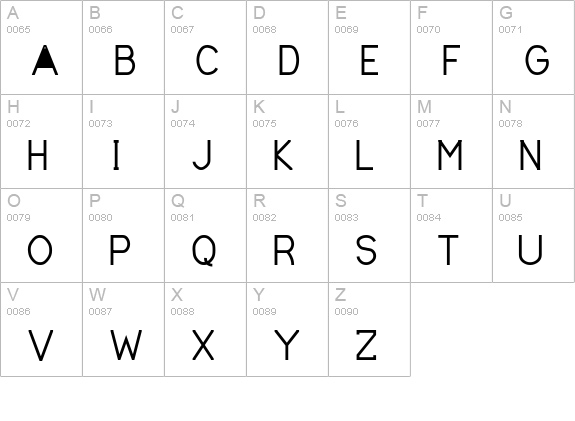
MathMajor Font Details
MathMajor font is a beautifully designed typeface that caters to the needs of those in the world of mathematics. With its sleek and modern look, this font is perfect for any mathematical document, whether it be a research paper, a textbook, or even a presentation. The MathMajor font is not only visually appealing, but also highly functional. Its clean lines and well-defined shapes make it easy to read and understand complex mathematical symbols and equations. Each character has been carefully crafted to ensure clarity and precision, making it a must-have for any math enthusiast. One of the best things about MathMajor font is that it is completely free. Yes, you read that right - this incredible font is available for download at absolutely no cost on FontsMarket.com. You can easily access and install it on your computer or device, allowing you to use it in all your mathematical endeavors without any limitations. Whether you are a student, a professor, or simply someone who appreciates the beauty of mathematics, the MathMajor font is sure to enhance your work. Its versatility and ease of use make it a valuable asset in any mathematical setting. So why wait? Head over to FontsMarket.com now and download the MathMajor font for free. Your mathematical documents will never be the same again.